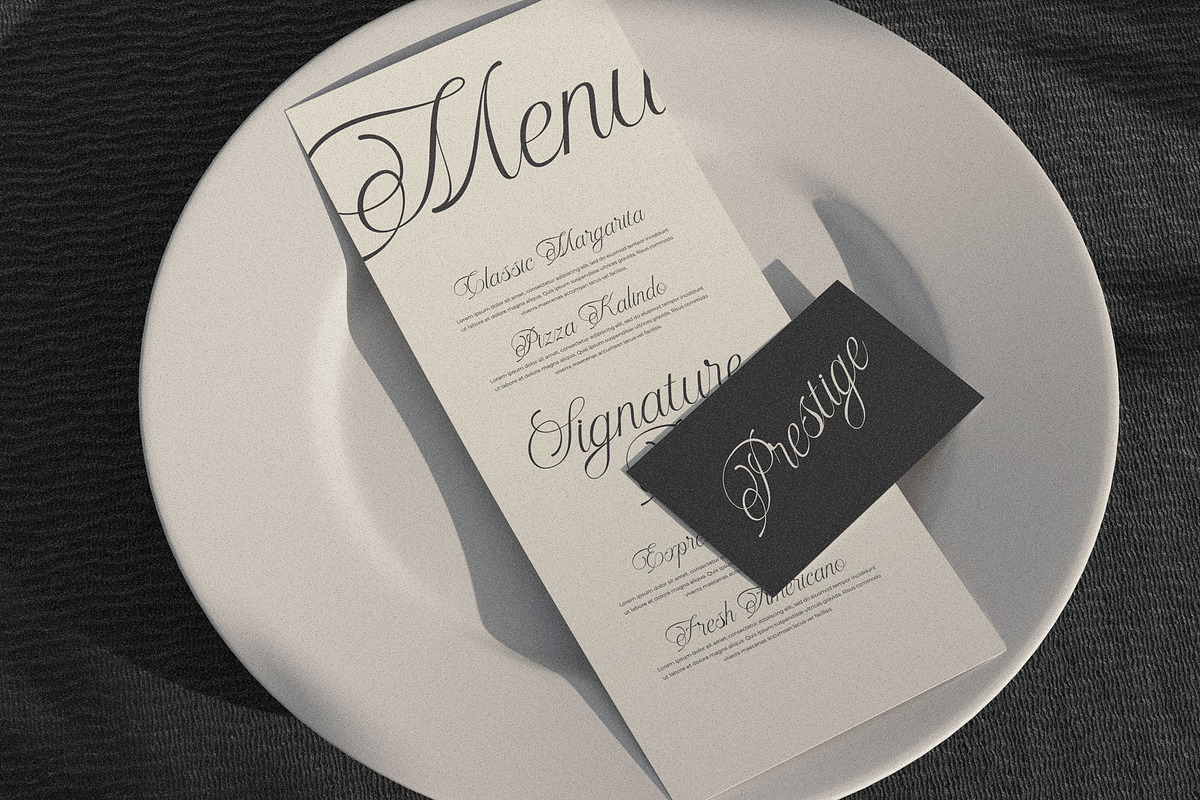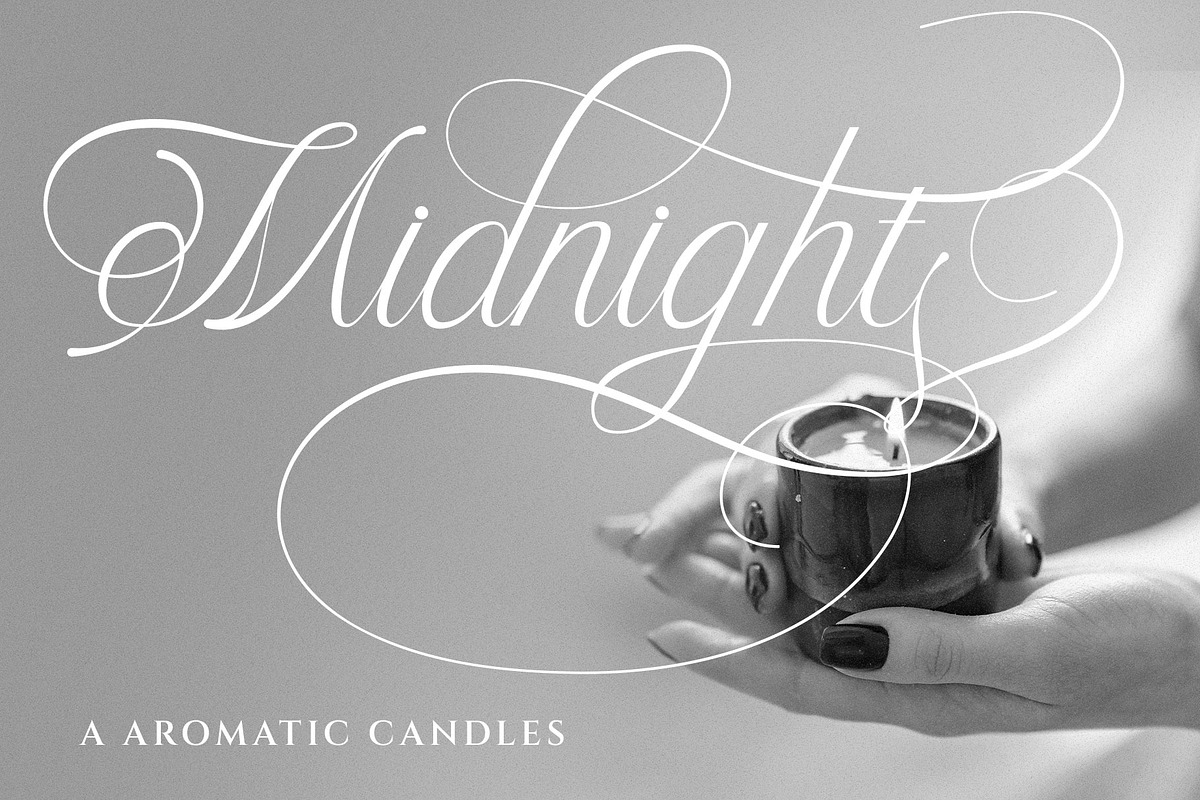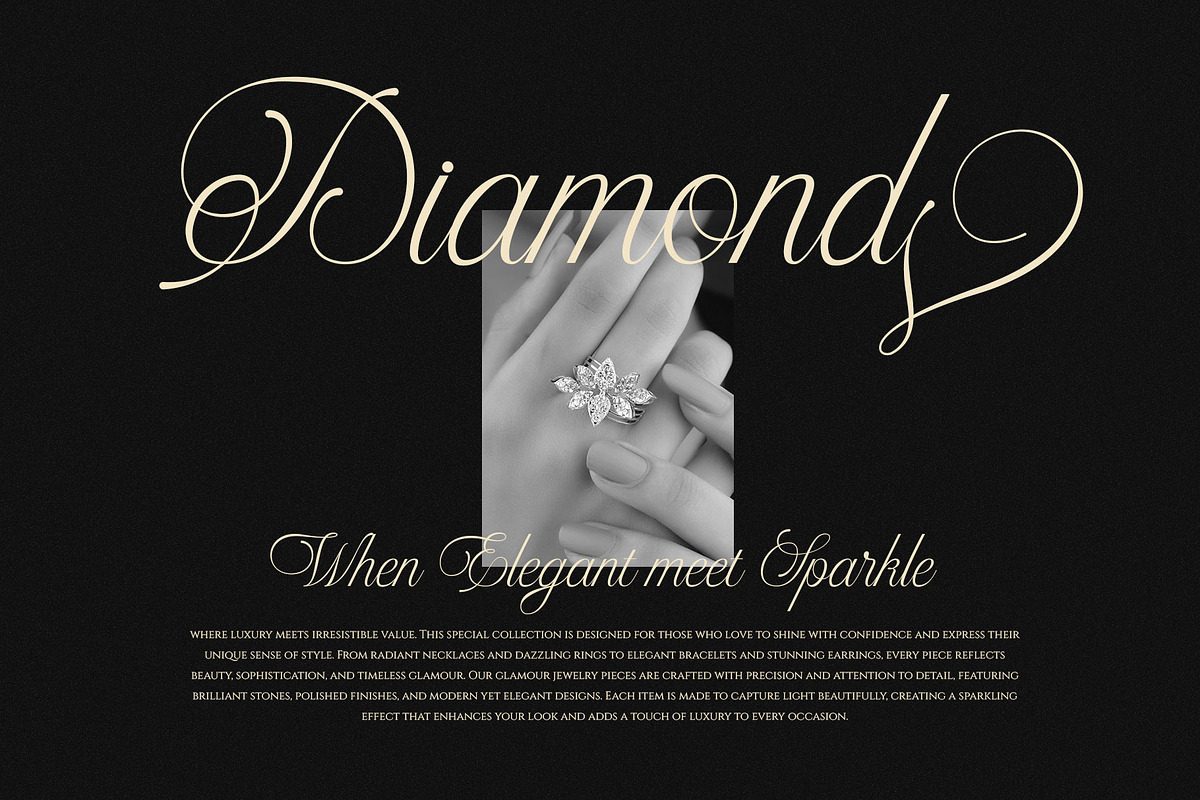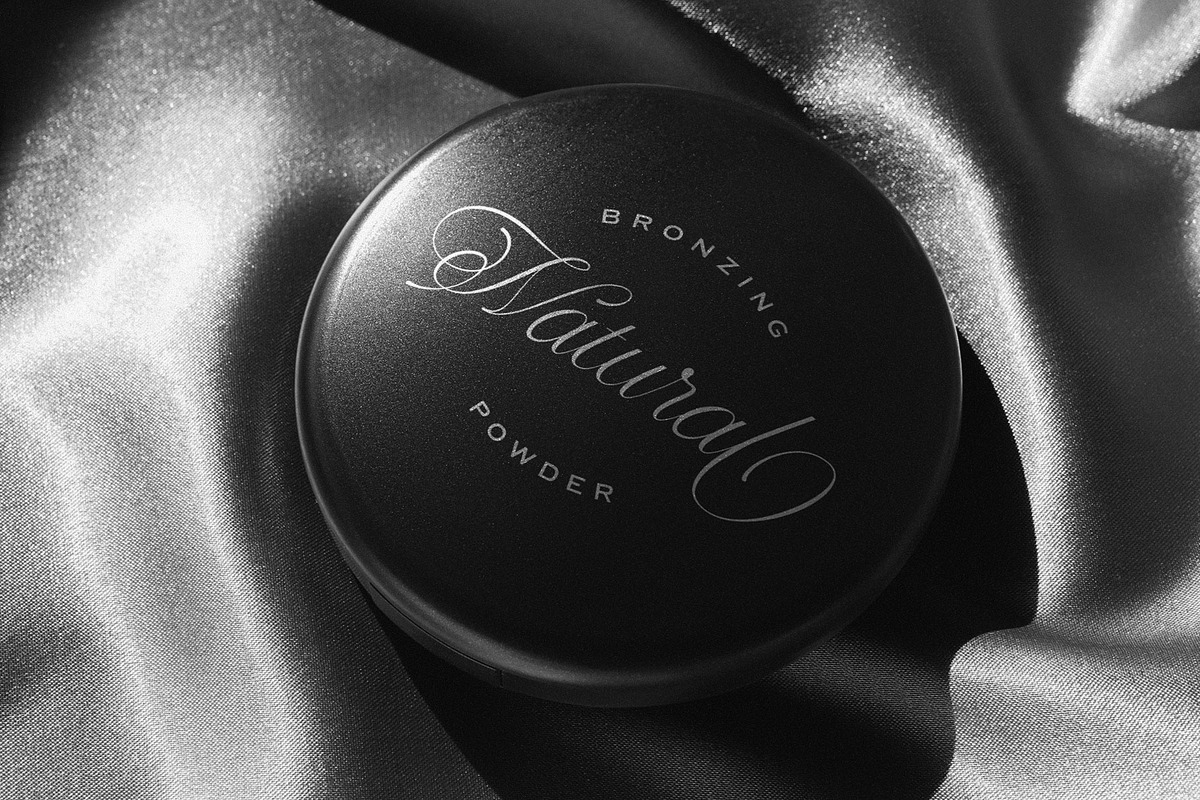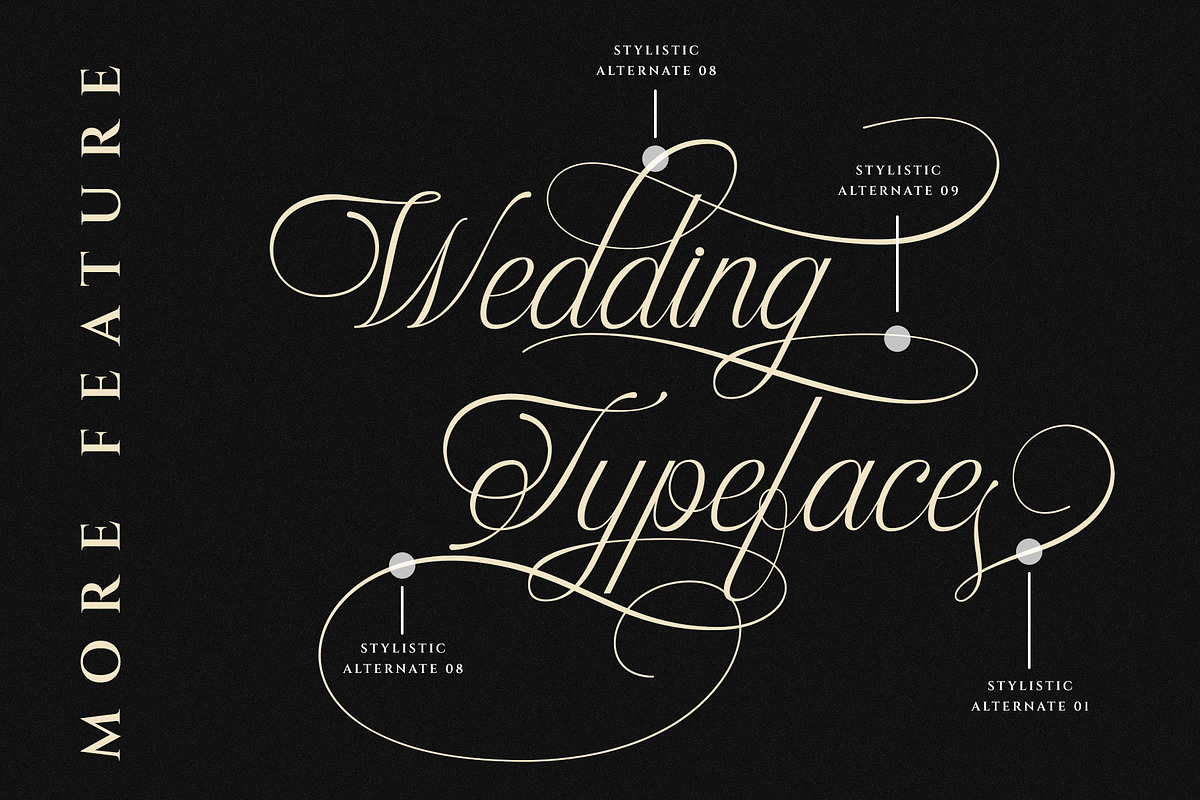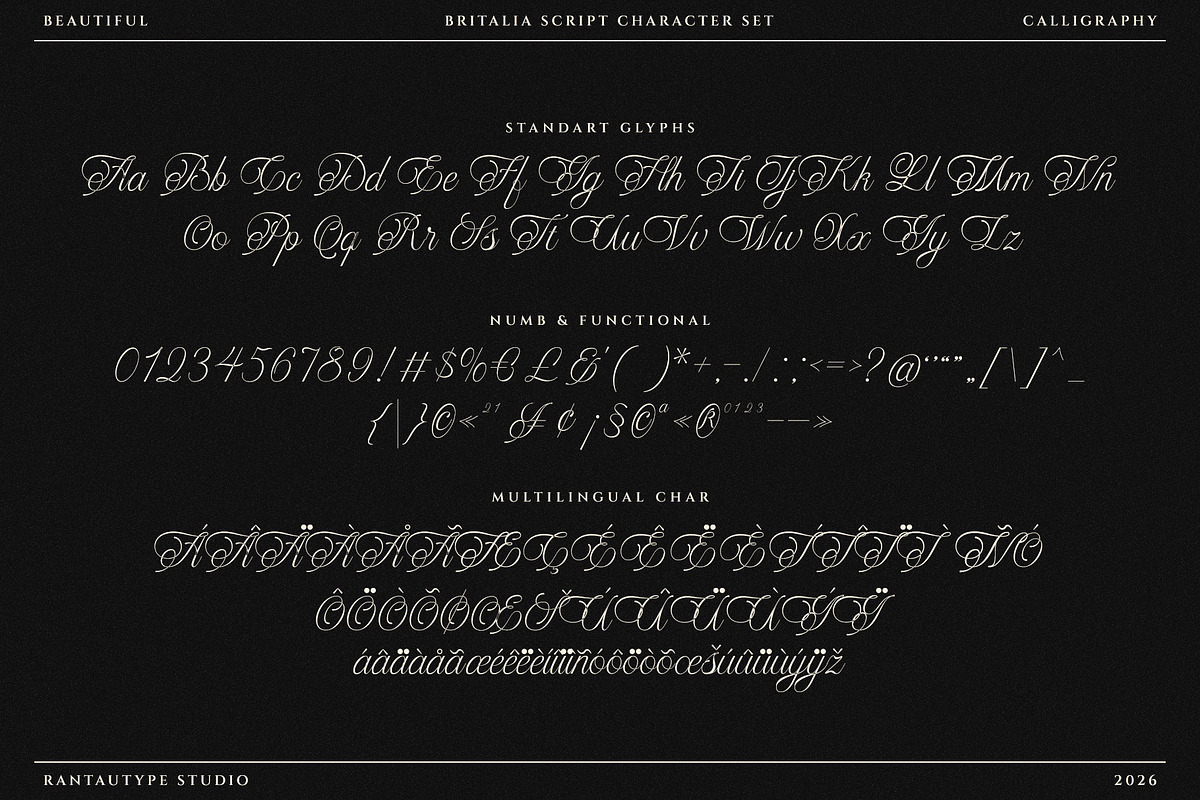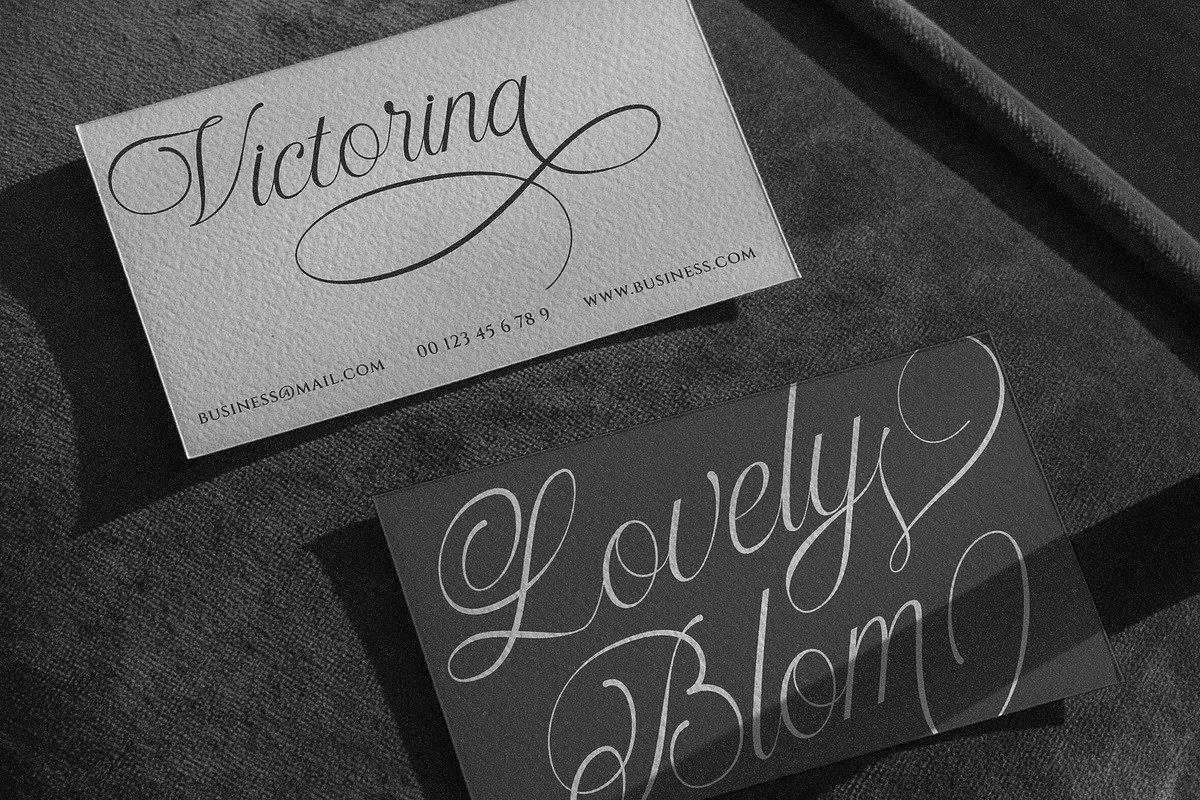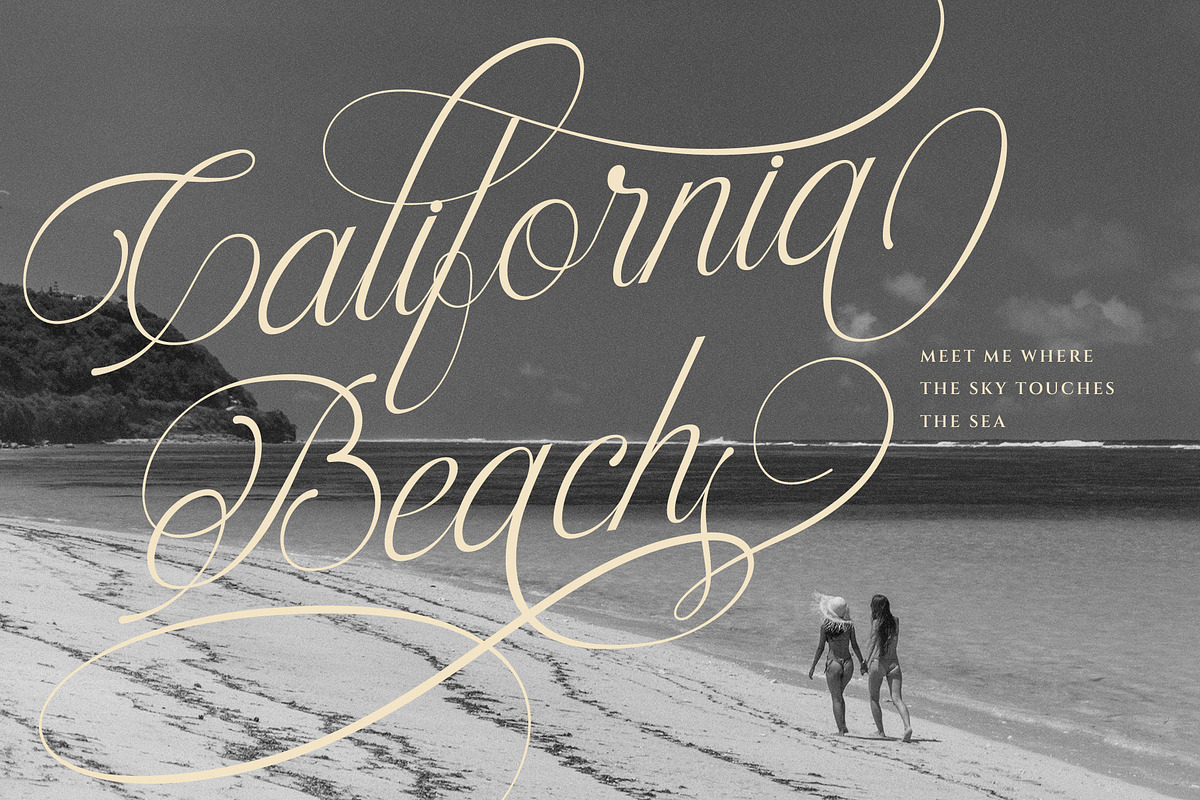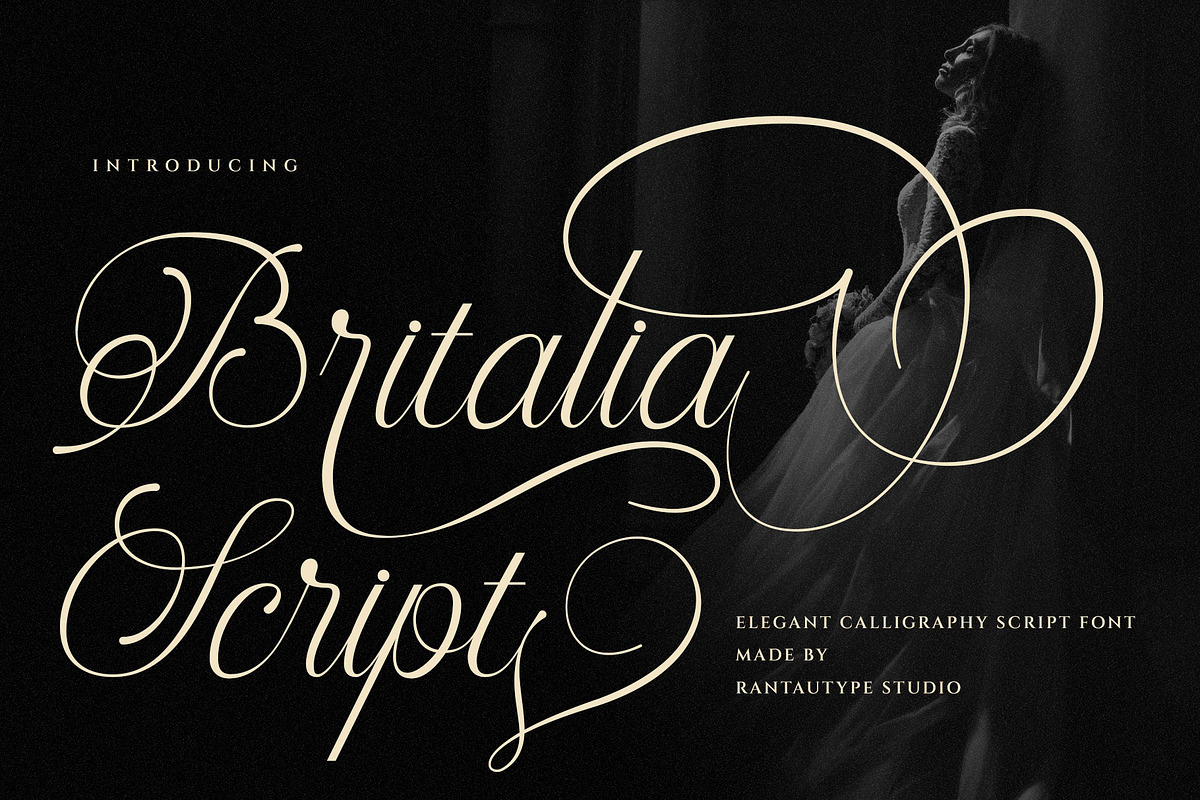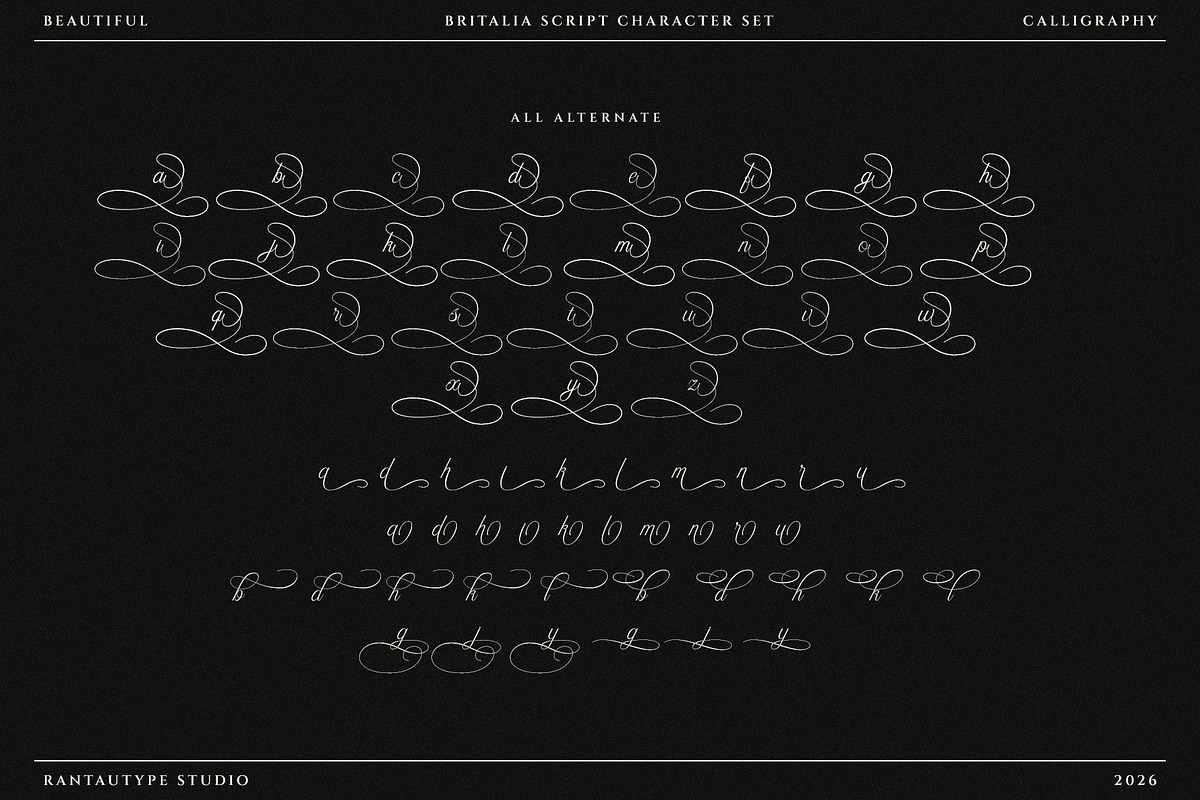
Britalia Script Elegant Calligraphy
Britalia Script is captures the timeless elegance of handwritten artistry, blending graceful curves with expressive strokes to create lettering that feels both personal and refined. Britalia Script come with delicate balance, where thick and thin strokes work harmoniously to produce a natural and elegant appearance.
Britalia Script is a perfectly choice for any creative endeavor, creating, modern, lifestyle design such as logotype, title, cover, branding, invitations, wedding designs, display and magazine, social media posts, advertisements, printed quotes, product packaging, corporate brand, product designs, labels, photography, watermarks, special events and any other project with calligraphy touch.
- Alternate and ligature
Fonts include Multilingual Character for: Afrikaans, Albanian, Asu, Basque, Bemba, Bena, Breton, Chiga, Cornish, Dutch, English, Estonian, Filipino, Finnish, Friulian, Galician, Gusii, Indonesian, Irish, Italian, Kabuverdianu, Kalenjin, Kinyarwanda, Luo, Luxembourgish, Luyia, Machame, North, Oromo, Portuguese, Quechua, Romansh, Rombo, Rundi, Rwa, Samburu, Sango, Sangu, Scottish, Gaelic, Sena, Shambala, Shona, Soga, Somali, Spanish, Swahili, Swedish, Swiss, German.